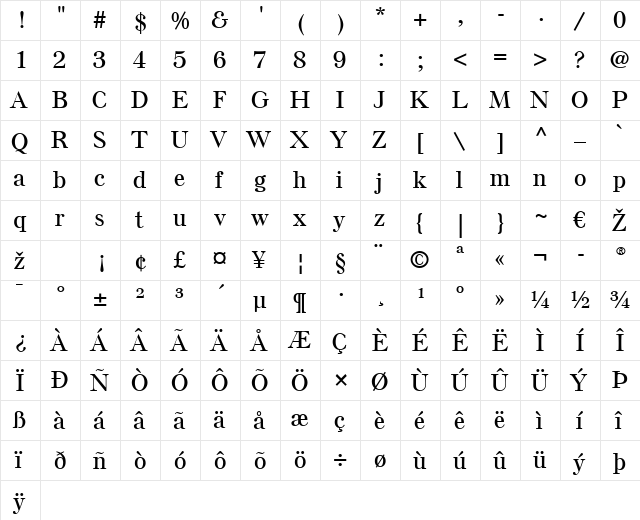
Else LT Light Bold
Design Context for Else LT Light Typeface
Else LT Light is a composed and adaptable typeface that performs quietly and consistently across a wide range of design contexts. The heavy weight commands attention and anchors typographic hierarchies.